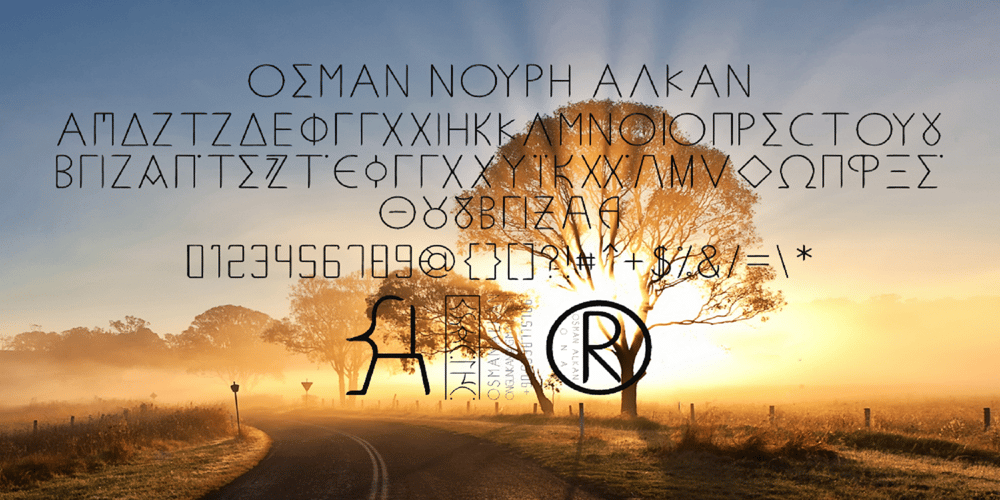
Ongunkan Karamanli Turkic Scrip Font Family was designed by Osman Nuri ALKAN and published by Runic World Tamgacı. Ongunkan Karamanli Turkic Scrip contains 1 styles and family package options. The font I made based on the Greek alphabet used by the Karamanlı Turks, who are Orthodox Christians, by adapting it to Turkish, which I deduced by looking at the inscriptions and translations. In order to write in Turkish, Turkish special characters are loaded with letter combinations and sounds. But it can still be easily written in Greek.